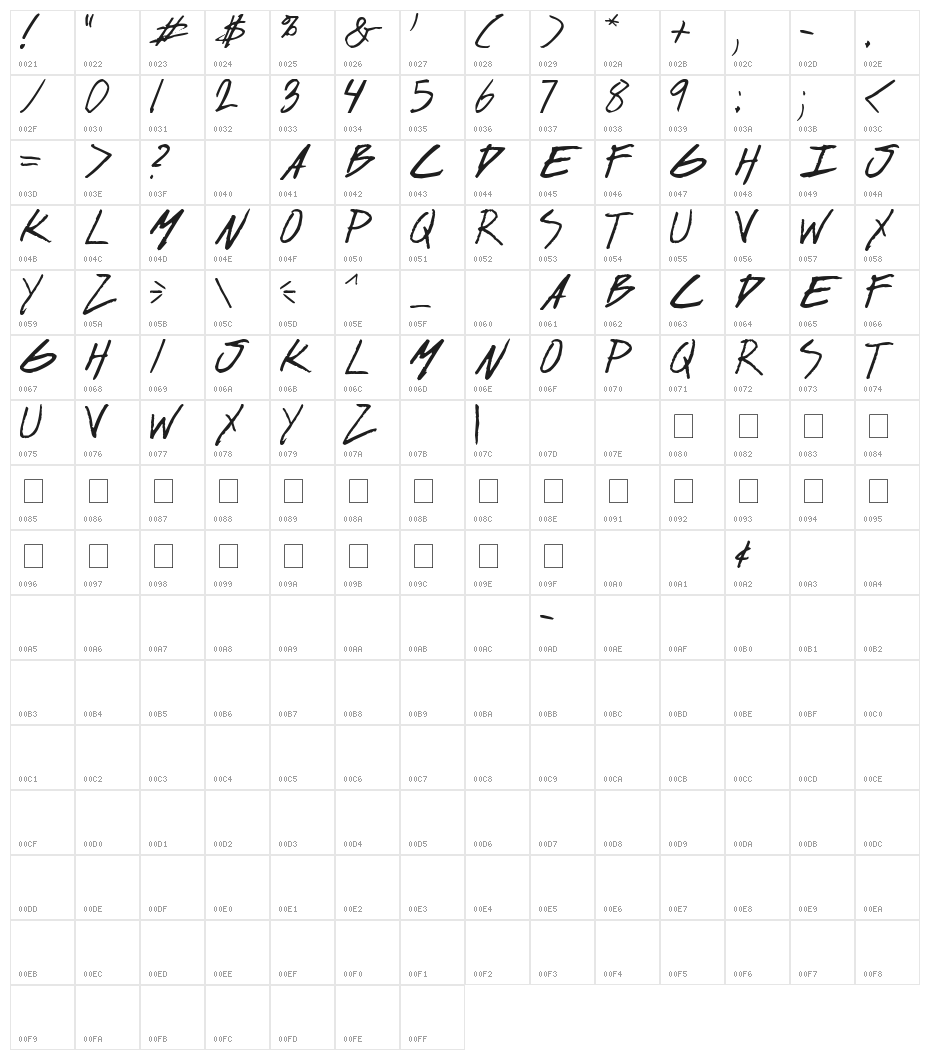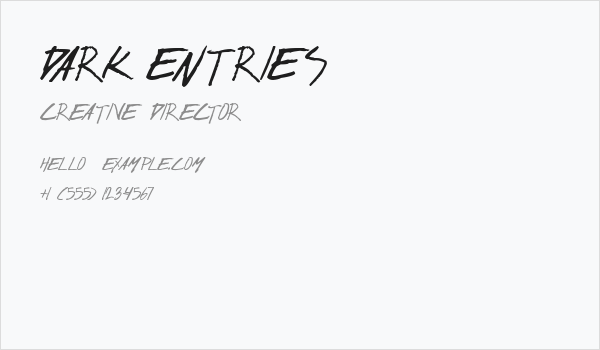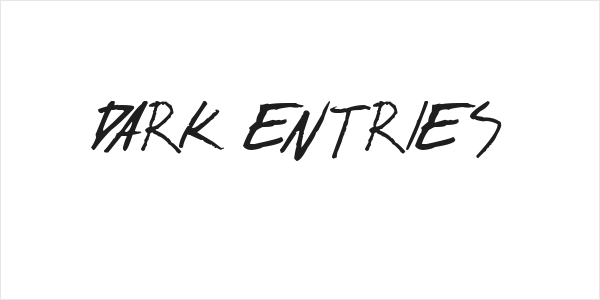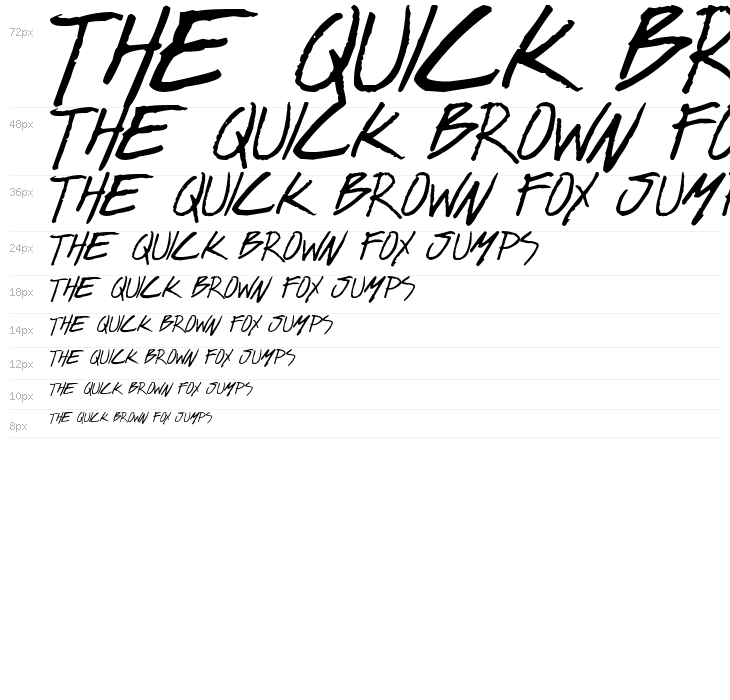
dark entries Font
dark entries Description
This font exudes a dynamic and energetic style, characterized by its sharp, angular strokes and a hand-drawn appearance. The letters are bold and slightly slanted, giving a sense of movement and urgency. The uppercase and lowercase letters maintain a consistent style, with exaggerated curves and pointed edges that add to its dramatic flair. Numbers and special characters follow the same aesthetic, ensuring a cohesive look across all text elements. The overall design is reminiscent of graffiti or street art, making it ideal for projects that require a bold, expressive touch.
| Proposed Projects | Ideal for street art-inspired designs, music album covers, edgy branding, and posters that require a bold statement. |